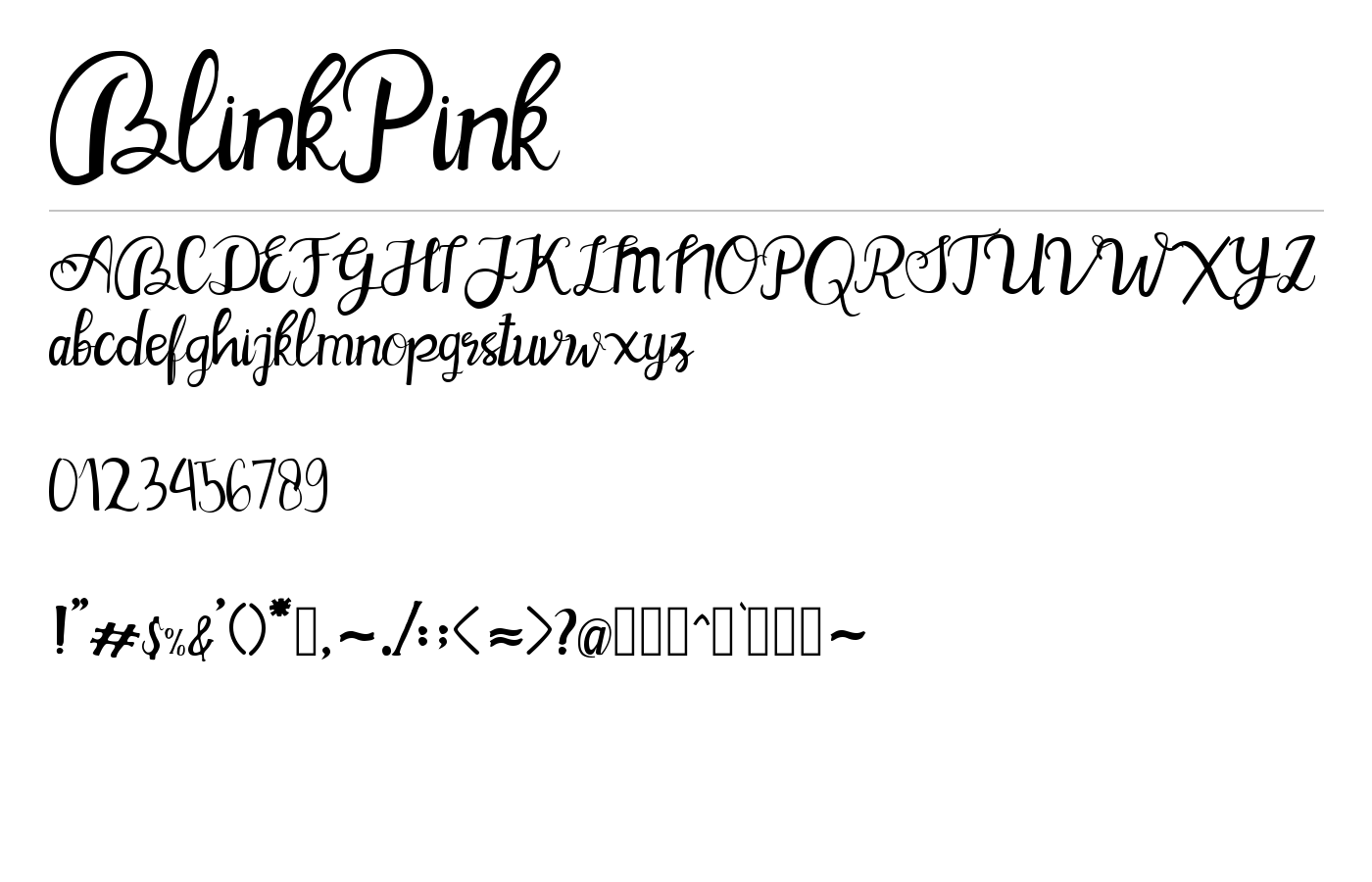
BlinkPink is an elegant script font with a playful and feminine touch, featuring smooth, flowing strokes with moderate contrast and charming curls on letters. Its tall, narrow forms and unique letter shapes make it perfect for stylish logos, invitations, and branding that seek a sophisticated yet approachable personality. This font works well in display uses where its decorative flair can shine and add a personal, artistic feel to the design.
BlinkPink Font
About BlinkPink Font